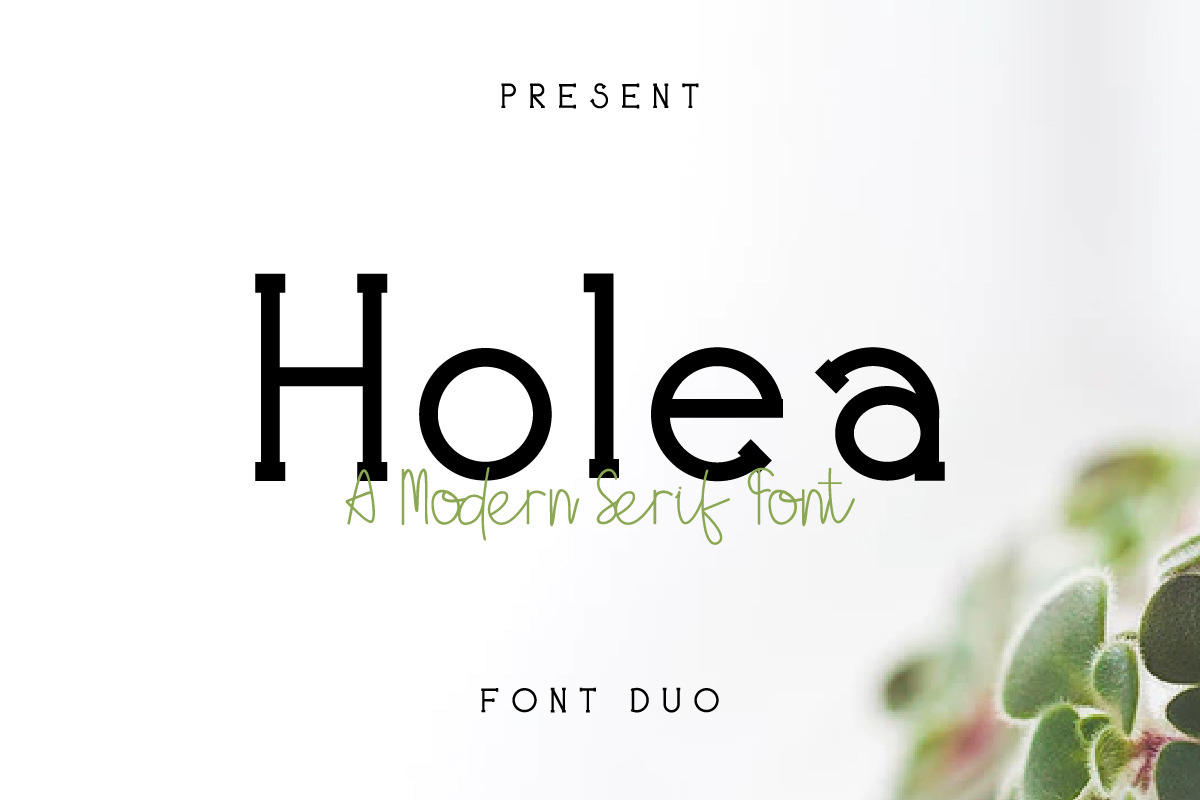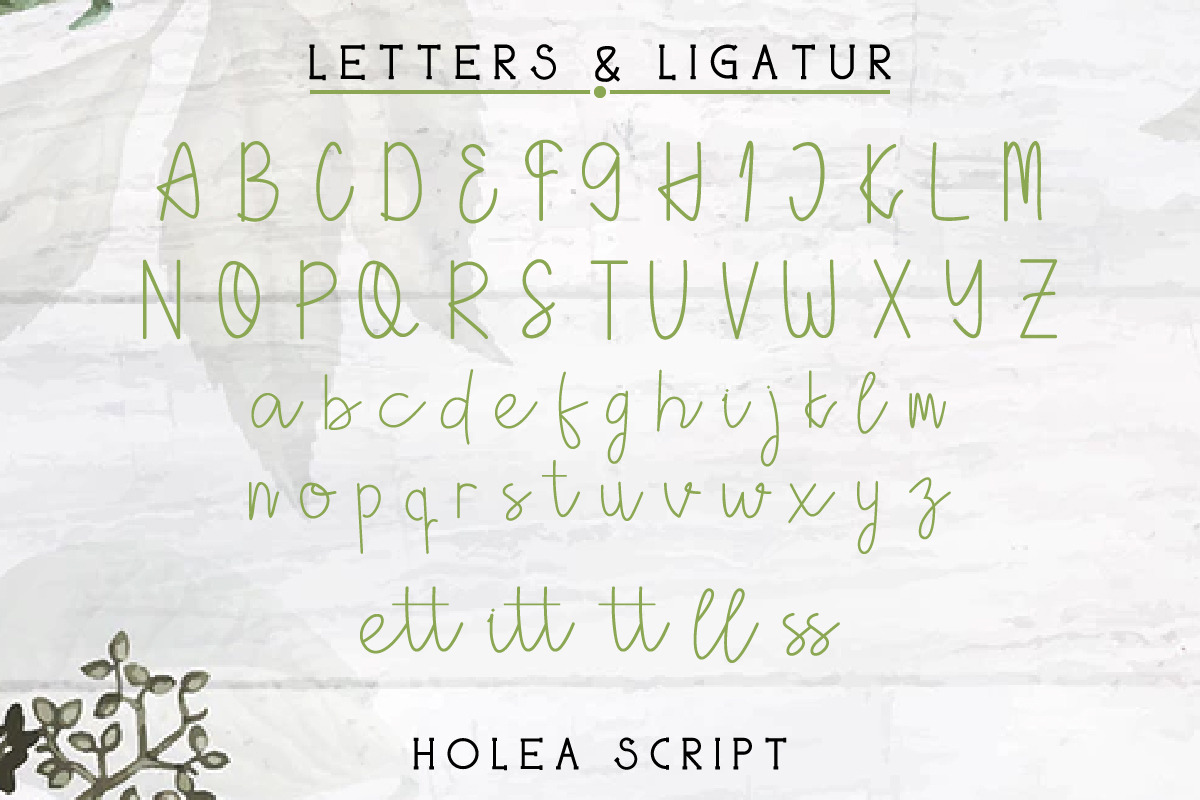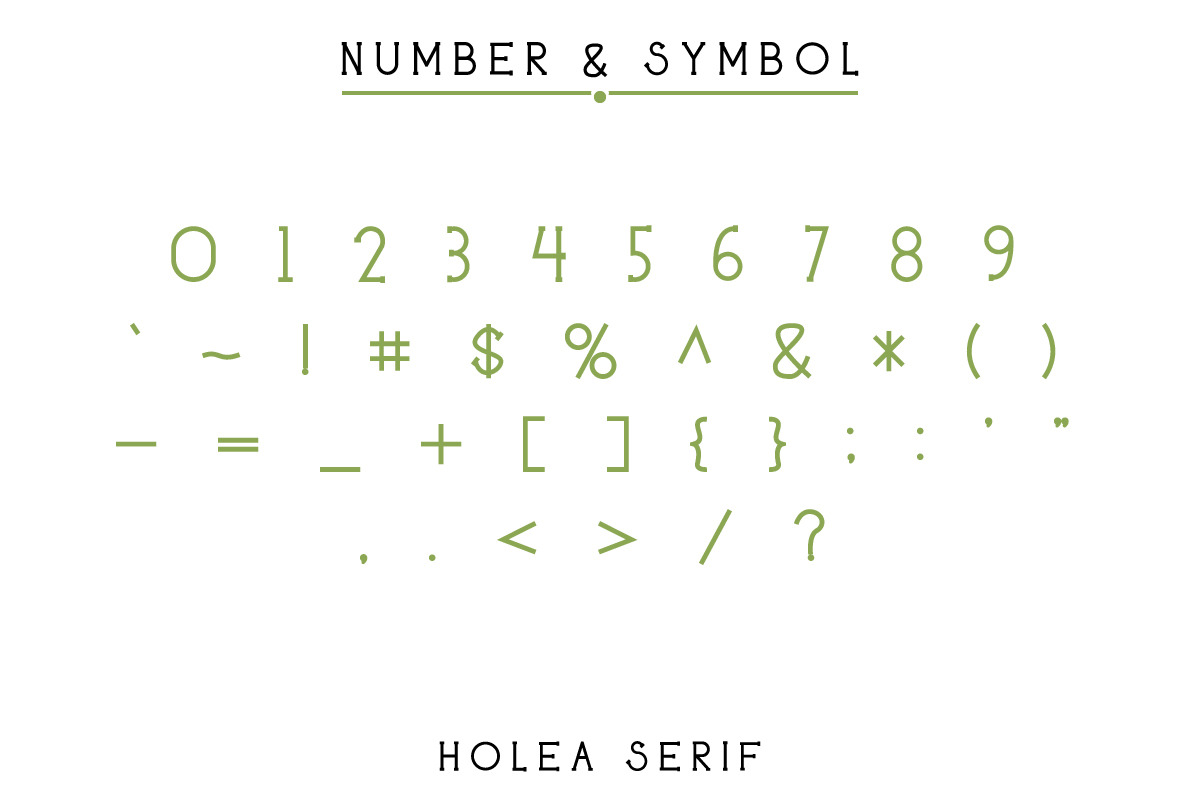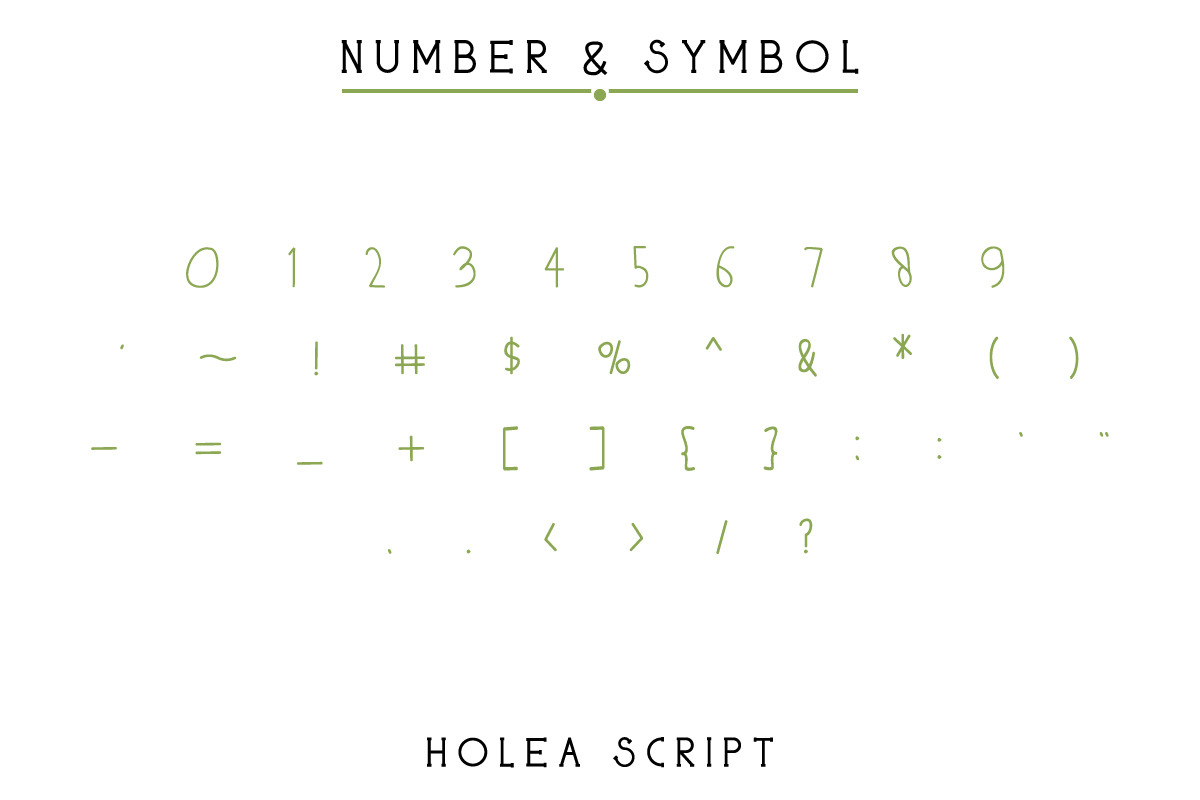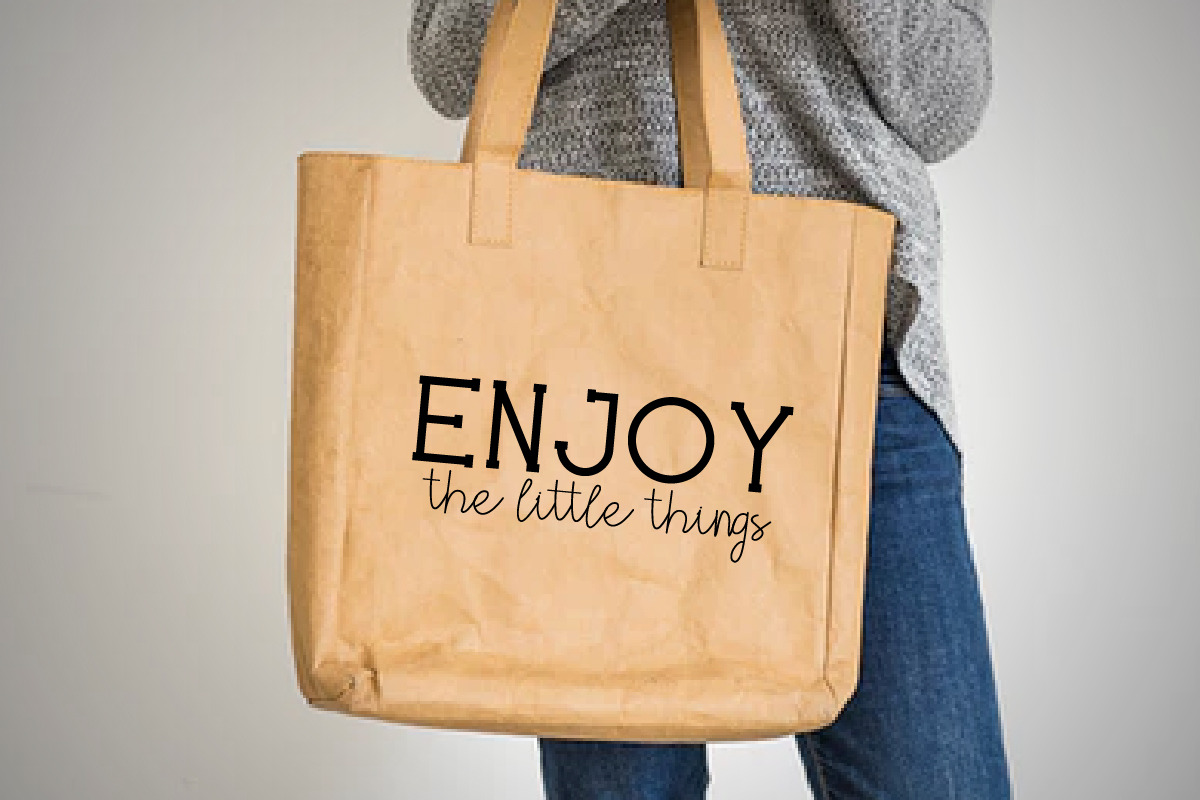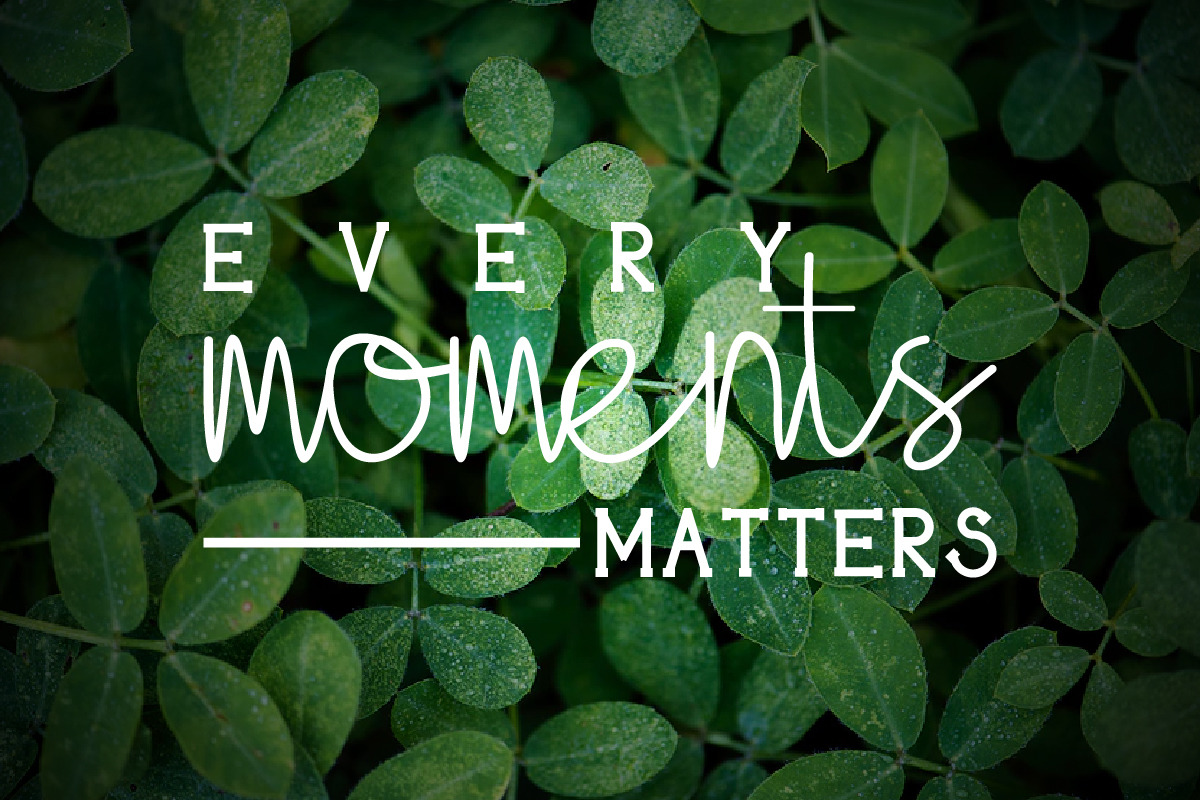
Holea Fonts Duo
Hi Everyone! It’s good to be back, Introducing our newest font : Holea ! It’s a FAMILY FONTS consist of Regular Sans, Script, Light, Gradient, and Bold.
This is a new modern family font with stylish glyph. Will be Great for branding, logo, stationery, business card, invitation, flyer, brochure etc. There are many industries that is suitable for this font : food, supermarket, retails, clothing, salon, interior, furniture, real estate, sales, law firm, agency, marketing etc . It is so elegant, classy, light and beautiful.